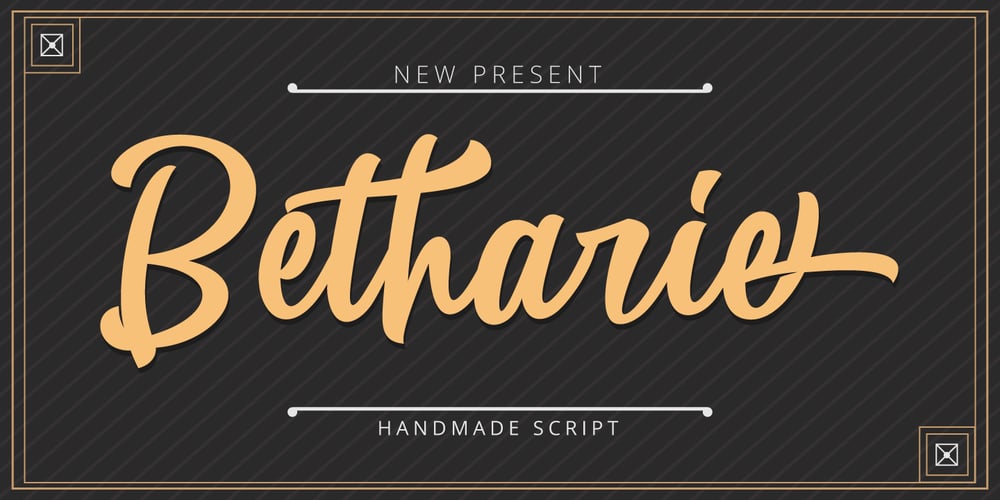
Betharie Font Family was designed by Fajriadi and published by Masinong Studio. Betharie contains 1 styles and family package options. Betharie, inspired by Retro style in combination with Hand Lettering style. I gave every single curve a personality touch. I hope this can inspire you from your work. Betharie has a very bouncy baseline, a perfectly paired complimentary marker font and a super handy set of bonus Swashes. Ideal for logos, handwritten quotes, product packaging, header, poster, merchandise, social media & greeting cards. Features Basic Latin A-Z and a-z Numbers Symbols Stylistic Set Ligature PUA Encode Multilanguage Support To enable the OpenType Stylistic alternates, you need a program that supports OpenType features such as Adobe Illustrator CS, Adobe Indesign & CorelDraw X6-X7. There are additional ways to access alternates, using Character Map (Windows), Nexus Font (Windows), Font Book (Mac) or a software program such as PopChar (for Windows and Mac). If you have any question, don’t hesitate to contact me by email masinong.studio@gmail.com